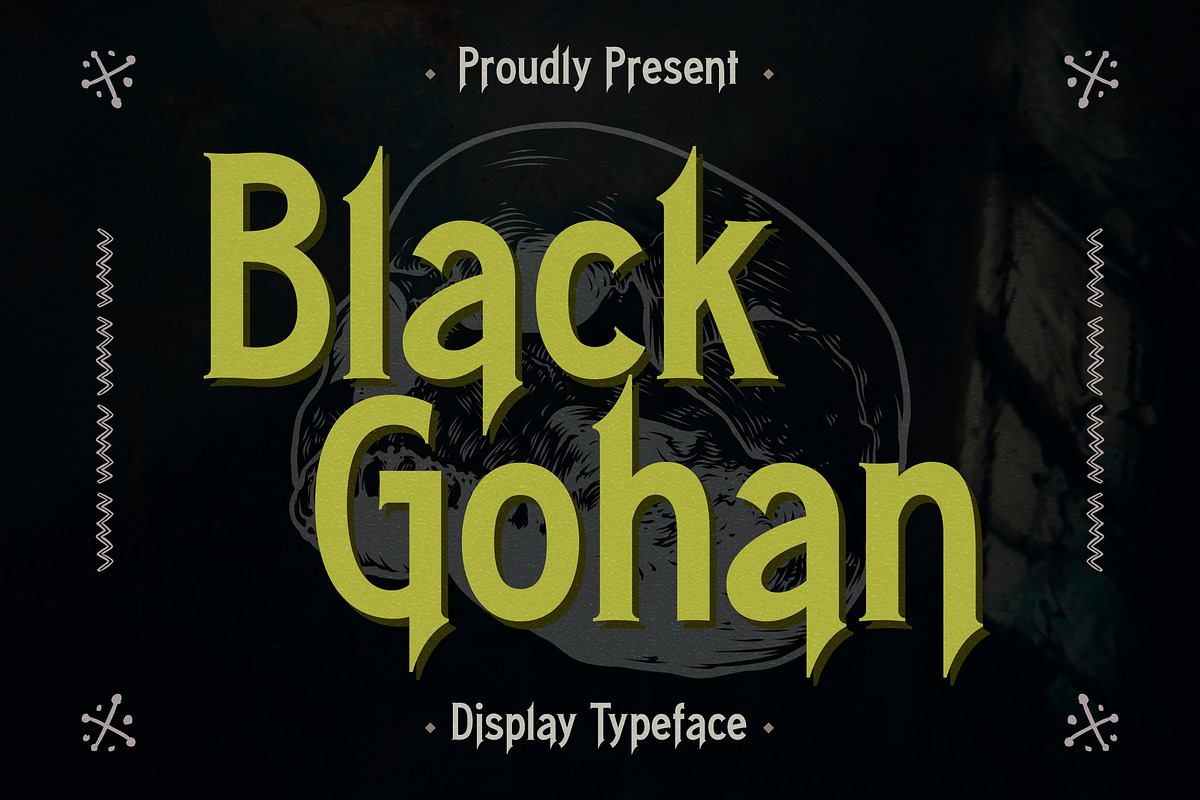
Black Gohan Display Typeface Font Free Download
Black Gohan Display Typeface Font Free Download is a bold and dynamic display font designed to make a strong statement. With its thick strokes, sharp edges, and unique structure, Black Gohan is perfect for high-impact designs, including posters, logos, headlines, product packaging, and more.
Its strong and assertive style makes it ideal for projects that need to stand out, from action-packed branding to cutting-edge digital designs. Whether you're working on a sports team logo, event poster, or contemporary branding, Black Gohan delivers powerful visual appeal.